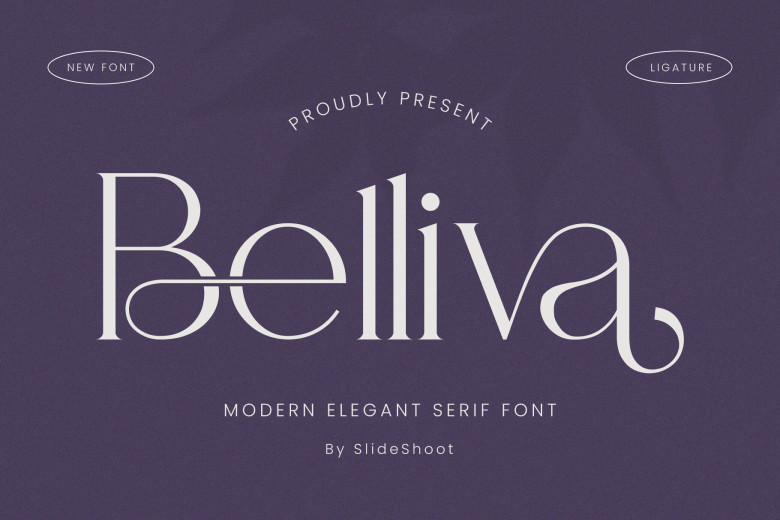
Belliva Font
Belliva It is an elegant graceful, smooth and sophisticated serif font. Perfect for invitation cards, company logos, movies, titles, books, business cards, brand names, among other designs; Belliva Serif’s subtle serif font exudes sophistication and class while its exquisite variations and ligatures make this font the ideal partner in any design project.
Belliva Serif Font